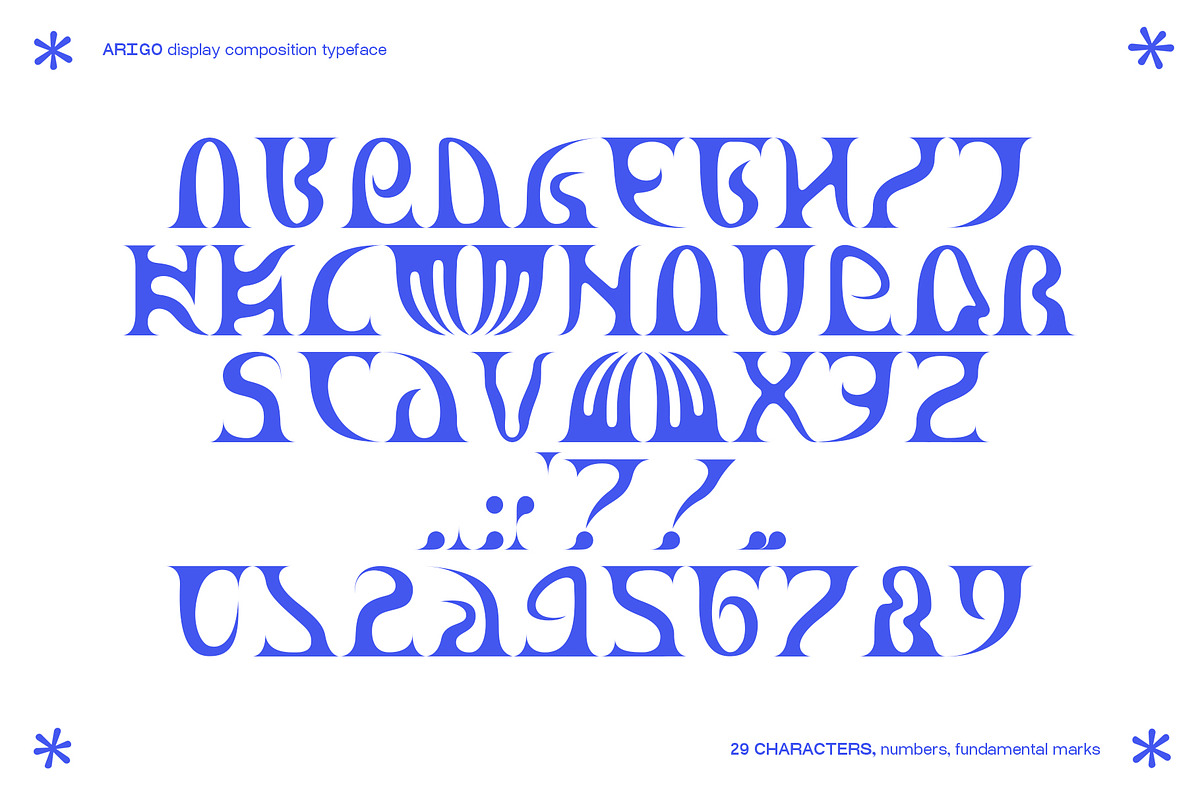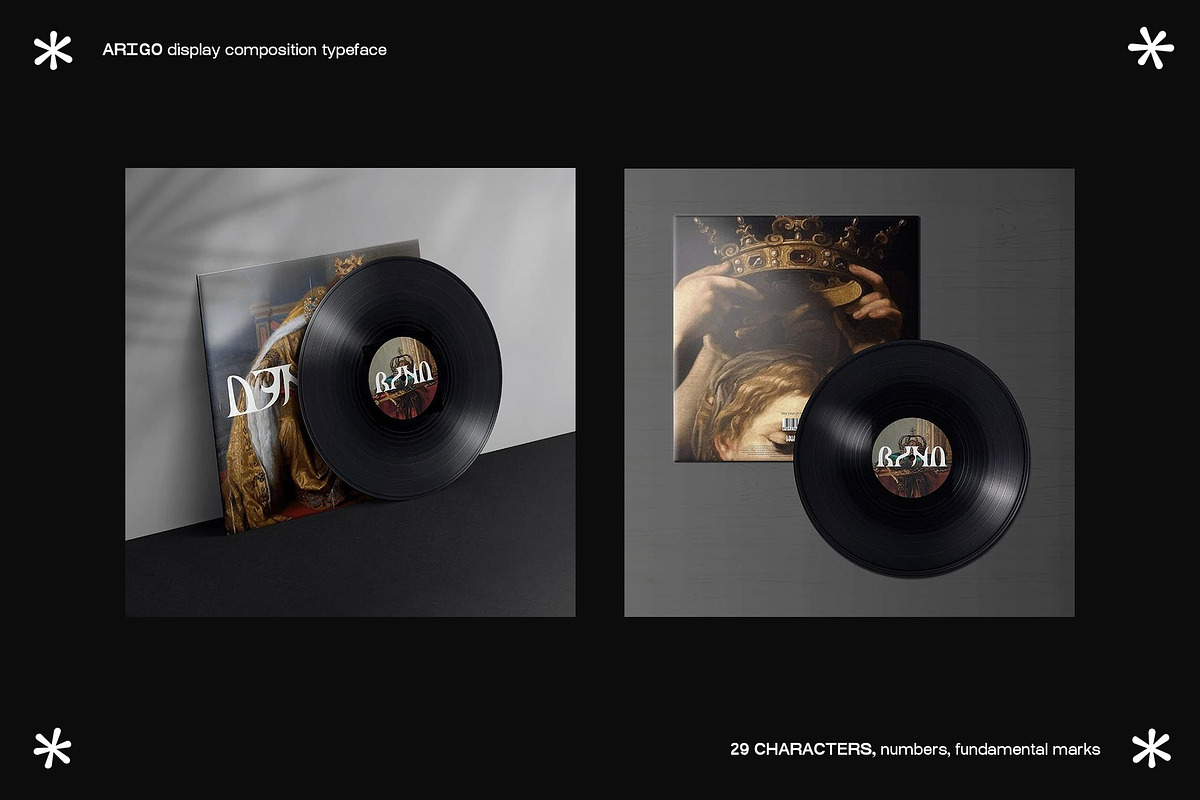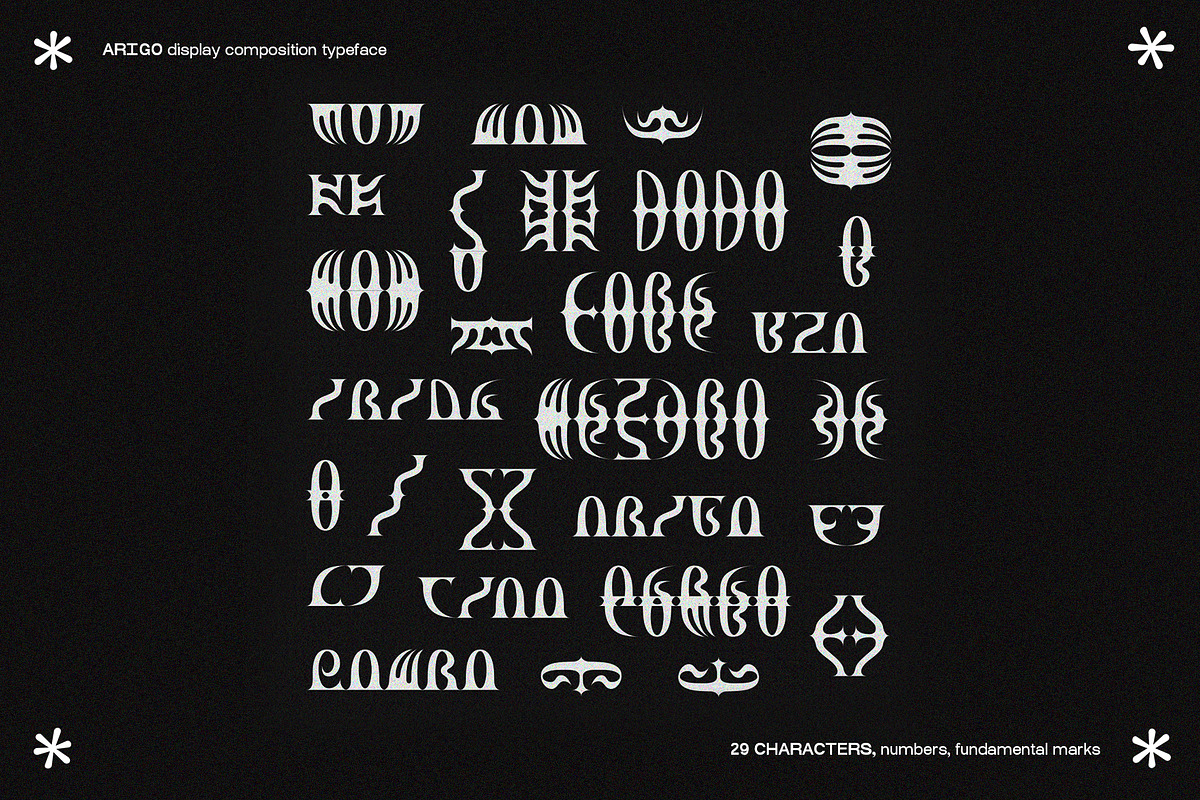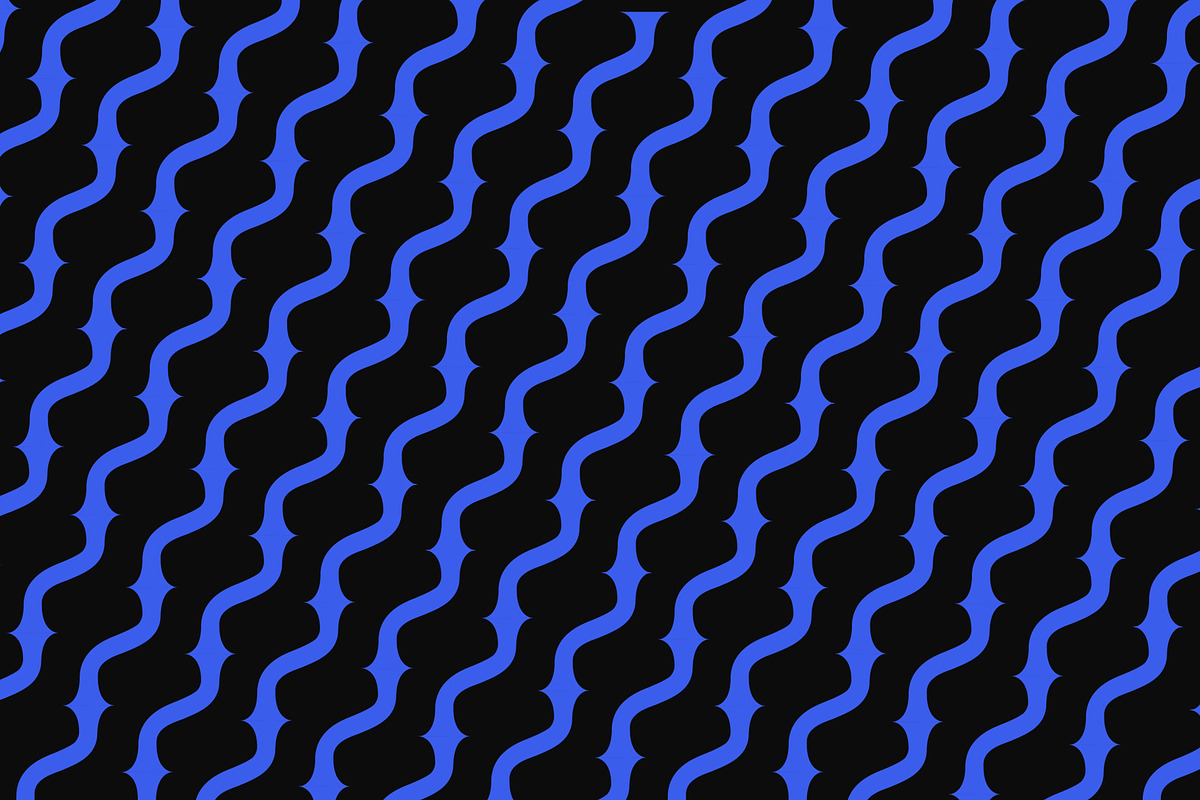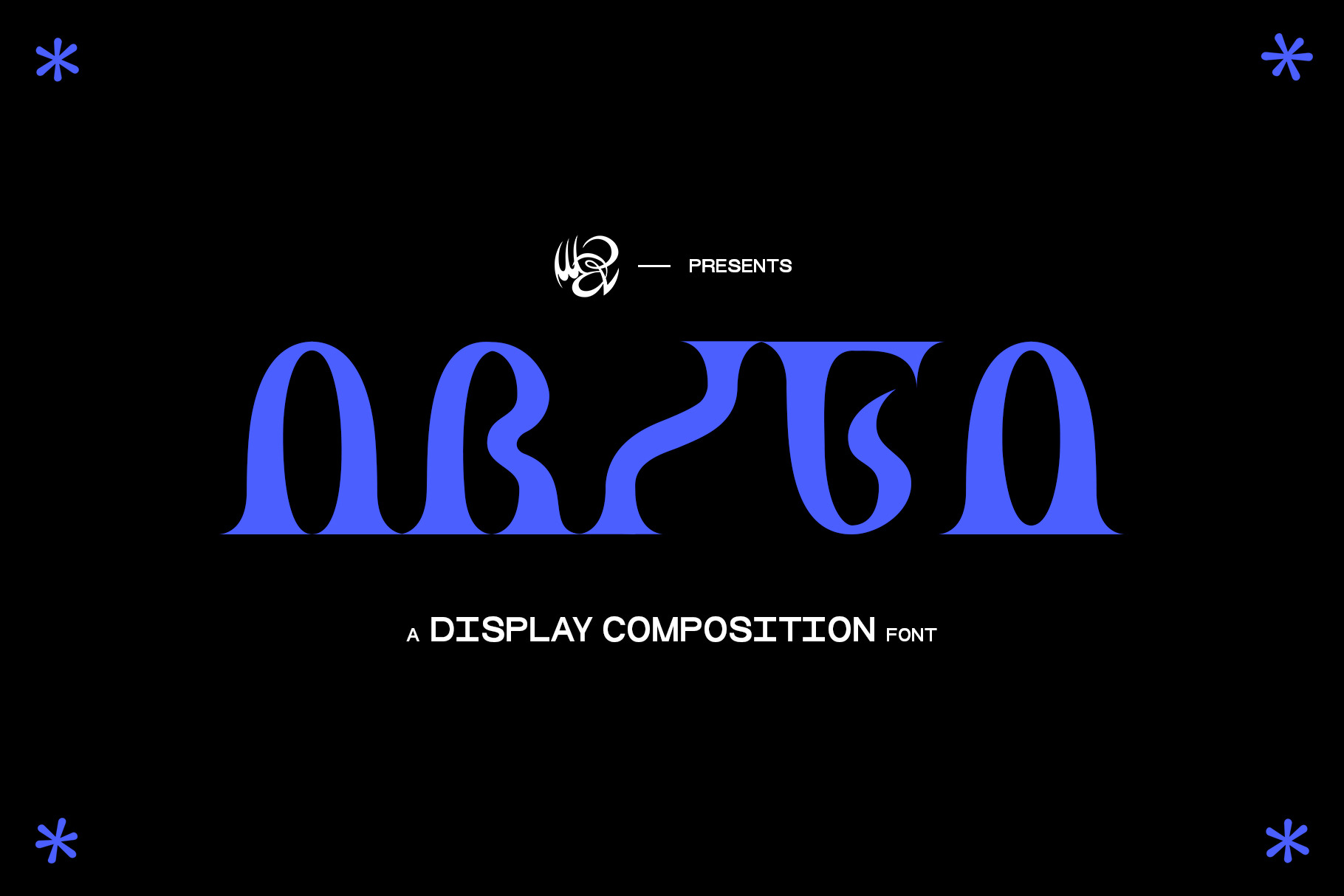
ARIGO Display Composition Font
This is ARIGO, a display font full of all 26 characters (+ 3 alternatives), numbers and the essential marks, it works perfectly to create big titles and headlines for any kind of artwork, poster, design for merch etc... This font is meant to be used to create beautiful compositions of letters (as shown in the third image), it is really unique and there aren't font like this around, the only thing that i can suggest is to avoid using it for writing in really small pts, it can become hard to read! But it hasn't be created to do that! _____